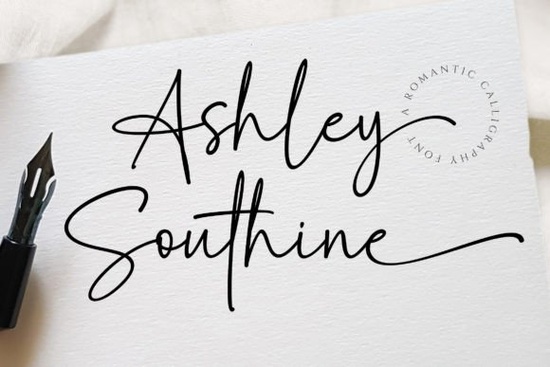
Designers, crafters, and small business owners often look for fonts that bring a personal touch to their work. The Ashley Southine Font is one such typeface that stands out for its elegant, handwritten style. This script font adds warmth and character to any project, making it ideal for everything from wedding invitations to brand logos. Whether you're creating digital artwork or printing custom designs, Ashley Southine offers a unique way to express creativity with a human feel.
If you're searching for a font that feels natural and authentic, Ashley Southine is worth exploring. Its soft curves and flowing lines mimic the look of real handwriting, giving your designs a more personal and inviting appearance. This font works well in both digital and print formats, making it a versatile choice for a wide range of creative projects. It’s especially popular among those who want to add a touch of elegance without sacrificing readability.
What Makes Ashley Southine Unique?
Ashley Southine is designed to feel like it was written by hand, which gives it a distinct personality. Each letter has subtle variations that make the font feel more organic and less mechanical. This quality makes it perfect for projects that require a warm, approachable aesthetic. Unlike some scripted fonts that can be difficult to read, Ashley Southine maintains clarity while still offering a stylish, handwritten look.
One of the key features of this font is its ability to blend sophistication with casual charm. It's not too formal, nor is it overly casual, which makes it suitable for a variety of design needs. Whether you're working on a logo, a social media post, or a printed invitation, Ashley Southine provides a balanced visual appeal that stands out without being overwhelming.
Best Uses for Ashley Southine
This font is particularly well-suited for projects that aim to convey a sense of intimacy and authenticity. Wedding planners often use it for invitations and thank-you cards, as it adds a personal, heartfelt touch. Small businesses looking to create a friendly brand image may also find it useful for logos, packaging, or promotional materials.
Crafters and print-on-demand sellers can benefit from using Ashley Southine in custom designs for t-shirts, mugs, and other products. Its readable yet artistic style makes it a great option for adding a unique flair to merchandise. For designers, it’s an excellent choice when they need a font that feels genuine and expressive.
- Wedding invitations
- Greeting cards
- Brand logos
- Printed stationery
- Custom merchandise
How to Use Ashley Southine Effectively
To get the most out of Ashley Southine, consider how it will fit into your overall design. Since it’s a script font, it works best when used in moderation. Pairing it with a simpler, sans-serif font can help balance the composition and improve readability. For example, using Ashley Southine for headings and a clean font for body text can create a visually pleasing contrast.
When working with this font, keep the layout simple and uncluttered. Avoid using it for large blocks of text, as it can become hard to read. Instead, use it for short phrases, titles, or decorative elements that highlight the beauty of the script. This approach ensures that the font remains effective and easy to read.
For more options, you can also look up Ashley Southine Font on Creative Fabrica to see how it compares to other script fonts. This platform is a great resource for finding high-quality typefaces that suit a variety of creative projects.
Whether you're a designer, a crafter, or a small business owner, Ashley Southine is a valuable addition to your design toolkit. Its natural, handwritten style brings a sense of warmth and personality to any project. By using it thoughtfully, you can enhance the visual appeal of your work while maintaining clarity and professionalism.
Before finalizing your design, take a moment to test the font in different sizes and contexts. This will help ensure that it looks good in all applications. If you’re unsure about how to use it, experimenting with different layouts can help you discover the best way to incorporate it into your work.
Remember, the goal is to create something that feels authentic and engaging. With Ashley Southine, you have a tool that can help you achieve that goal with ease.
Quick Tips for Using Ashley Southine
- Use it for short, impactful text rather than long paragraphs.
- Pair it with a clean, modern font for balance.
- Test it in different sizes to ensure readability.
- Consider the tone of your project before deciding to use it.
- Explore other script fonts to find the best fit for your needs.